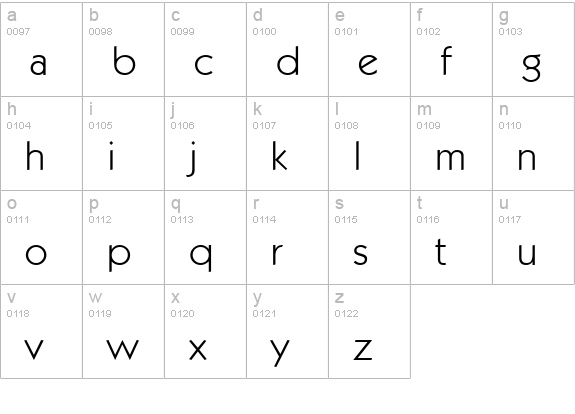
Performa Book SSi Book is a comfortable, highly readable variant in the Performa typeface family \xE2\x80\x94 well suited to long-form body text, articles, and editorial content.
Performa Book SSi Book font is a stunning typeface that combines elegance with a touch of modernity. With its clean and stylish design, this font is perfect for a wide range of projects, from branding and advertising to editorial and web design. The Performa Book SSi Book font features a balanced and harmonious letterform, making it highly legible and easy on the eyes. Its versatility allows it to be used in both large and small sizes without losing any of its charm. One of the standout features of the Performa Book SSi Book font is that it is available for free download at FontsMarket.com. This means that you can enjoy the beauty and functionality of this font without having to spend a dime. It is a perfect choice for those who want to add a touch of sophistication to their designs without breaking the bank. Whether you're designing a logo, creating a magazine layout, or crafting an eye-catching poster, the Performa Book SSi Book font will make your project stand out from the crowd. Its timeless appeal and versatility make it a must-have font for any designer or creative professional. So, why wait? Head over to FontsMarket.com and download the Performa Book SSi Book font for free today. Enhance your designs with this elegant and freely available typeface that will surely leave a lasting impression on your audience.